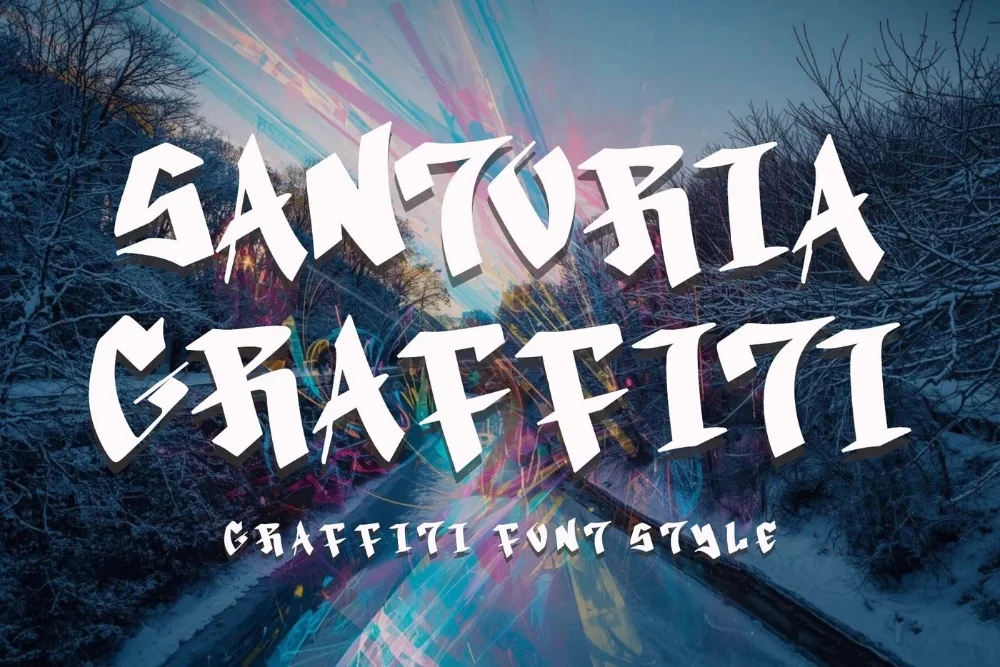
Wildstyle Tag Display Font
A wildstyle graffiti font lives or dies on how it behaves at real sizes, and this one has been tested at both extremes. Interlocking arrows and sharp exits in the classic wildstyle tradition. Short words become a puzzle of connected shapes.
Letters extend into arrowheads and hooks that reach toward their neighbours, so adjacent characters visually lock together. Legibility drops as words get longer, which is exactly the point of the style.
Made for one- or two-word statements: crew names, logo lockups, sticker sheets, and the centrepiece line on a poster.
It reverses well out of dark backgrounds, which is worth remembering if the artwork is heading for a black shirt or a night-time photograph.